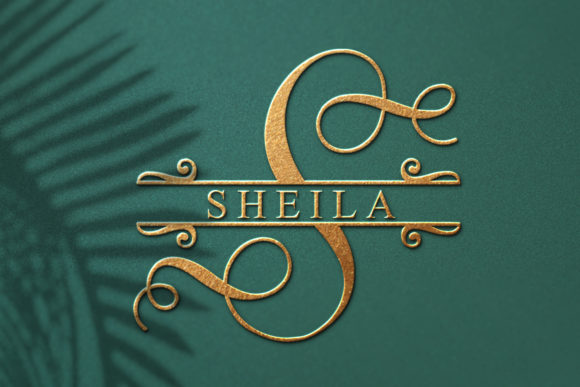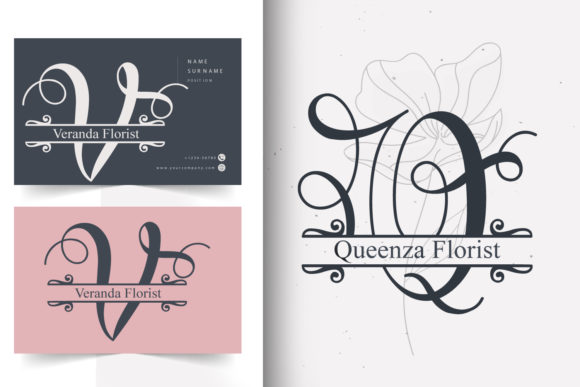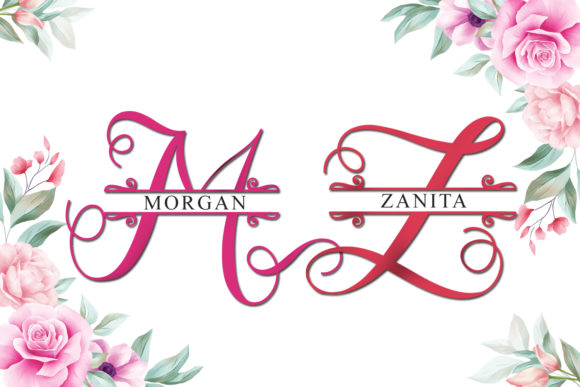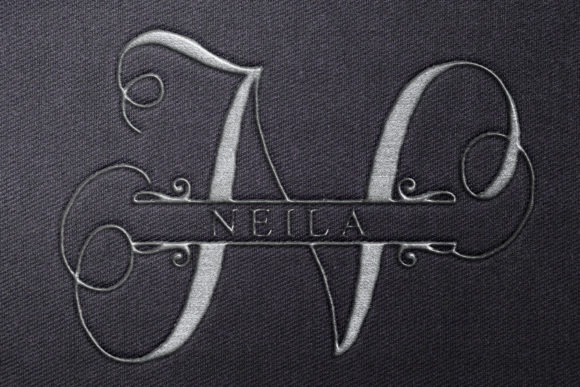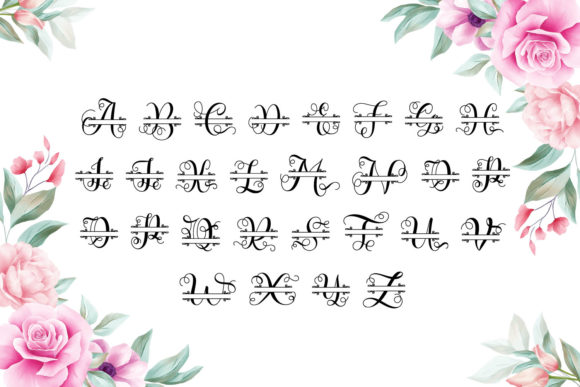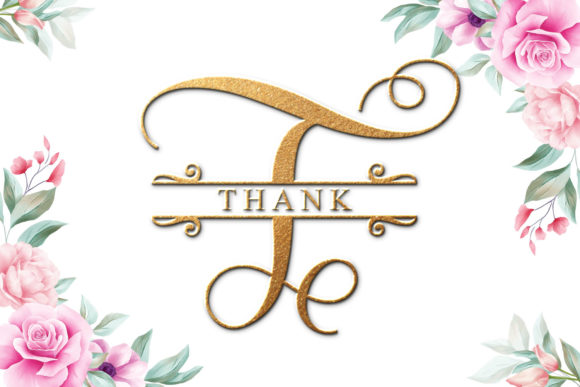
Alice Monogram Font: The Sweet Decorative Font for Your Creative Projects
Are you looking for a font that can add a touch of elegance and sophistication to your designs? Look no further than the Alice Monogram Font. This sweet decorative font is perfect for creating beautiful wedding invitations, stunning stationary art, eye-catching social media posts, and adorable greeting cards.
The Charm of Alice Monogram Font
Alice Monogram Font is a beautifully crafted font that exudes an authentic feel. Its unique design makes it perfect for adding a personal touch to your creations. Whether you’re a designer, crafter, or DIY enthusiast, this font is sure to capture your heart. With its intricate details and elegant swashes, Alice Monogram Font is the perfect choice for anyone looking to create stunning visual content.
What Makes Alice Monogram Font Special?
So, what sets Alice Monogram Font apart from other fonts? Here are a few features that make it a standout:
- Decorative and Elegant: Alice Monogram Font is a decorative font that adds a touch of elegance to any design. Its unique style makes it perfect for creating beautiful wedding invitations, stationary art, and more.
- Versatile: This font is versatile and can be used for a wide range of projects, from digital designs to print materials.
Uses for Alice Monogram Font
Alice Monogram Font is perfect for a variety of creative projects, including:
- Wedding Invitations: Create beautiful and elegant wedding invitations that set the tone for the big day.
- Stationary Art: Add a personal touch to your stationary art with this stunning font.
- Social Media Posts: Make your social media posts stand out with Alice Monogram Font.
- Greeting Cards: Create adorable greeting cards for special occasions, such as birthdays, anniversaries, and holidays.
Tips for Using Alice Monogram Font
Alice Monogram Font is a sweet decorative font that is perfect for designers, crafters, and DIY enthusiasts. Its authentic feel, elegant design, and versatility make it a great choice for a wide range of creative projects. With its PUA encoding and ease of use, you can create stunning visual content that will capture the hearts of your audience. So why wait? Fall in love with Alice Monogram Font and start creating beautiful designs today!
- Decorative and elegant design
- Versatile for use in a wide range of projects
- Perfect for wedding invitations, stationary art, social media posts, and greeting cards